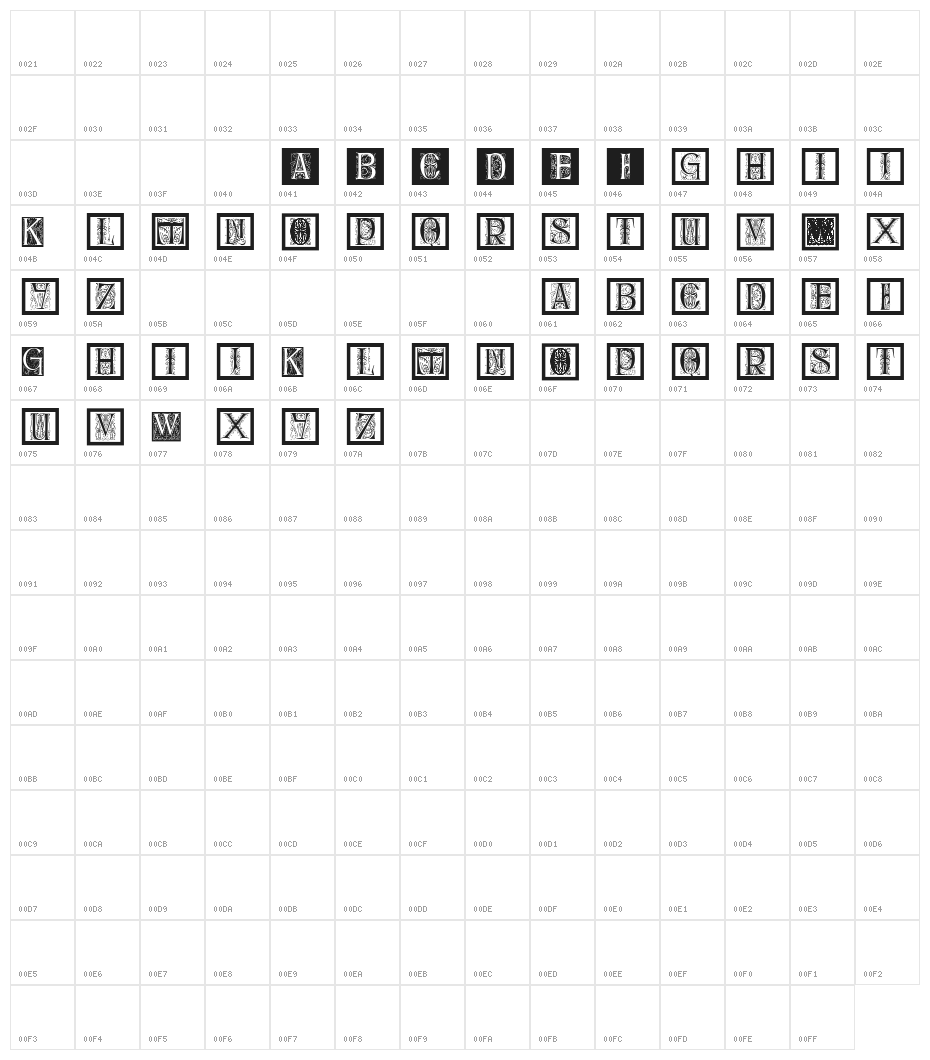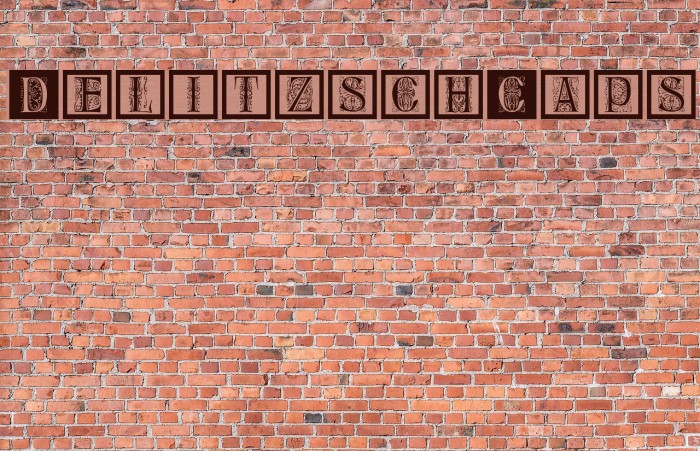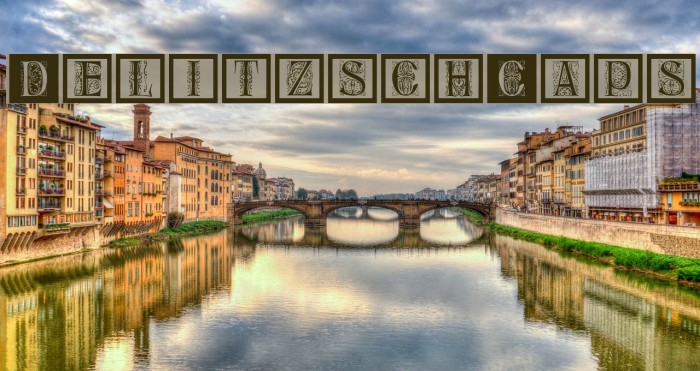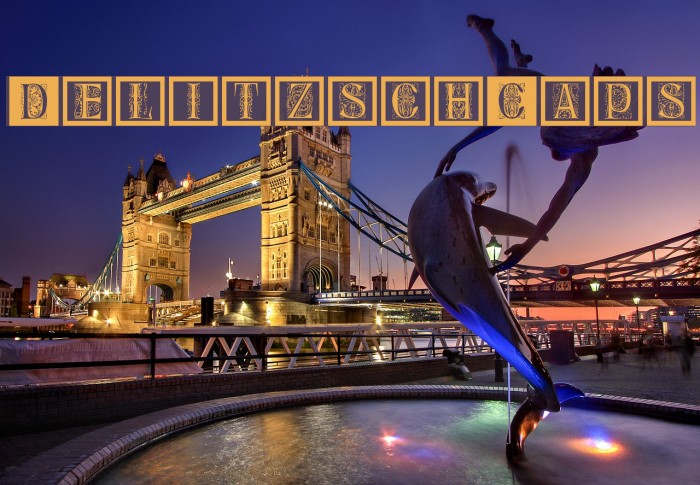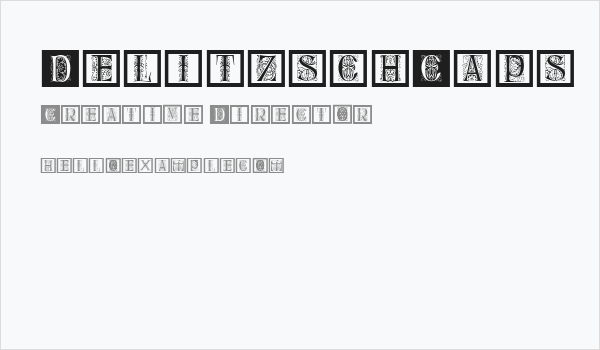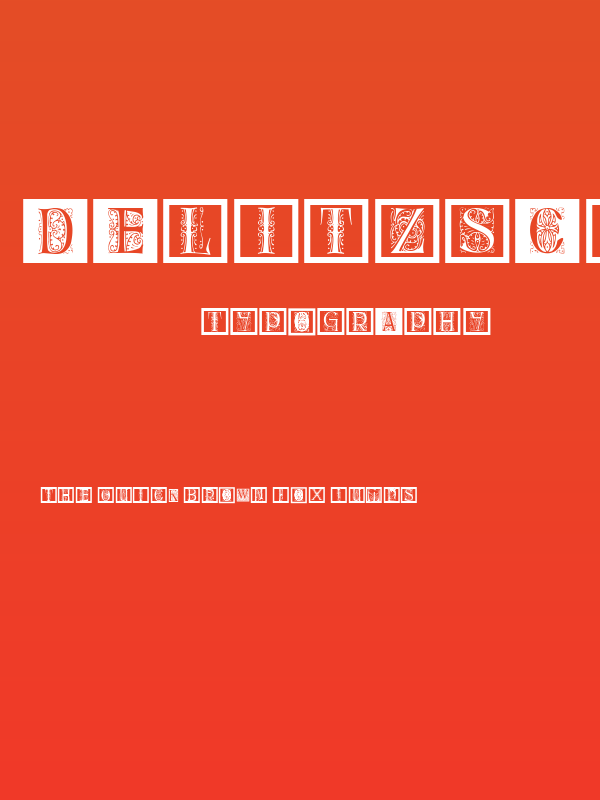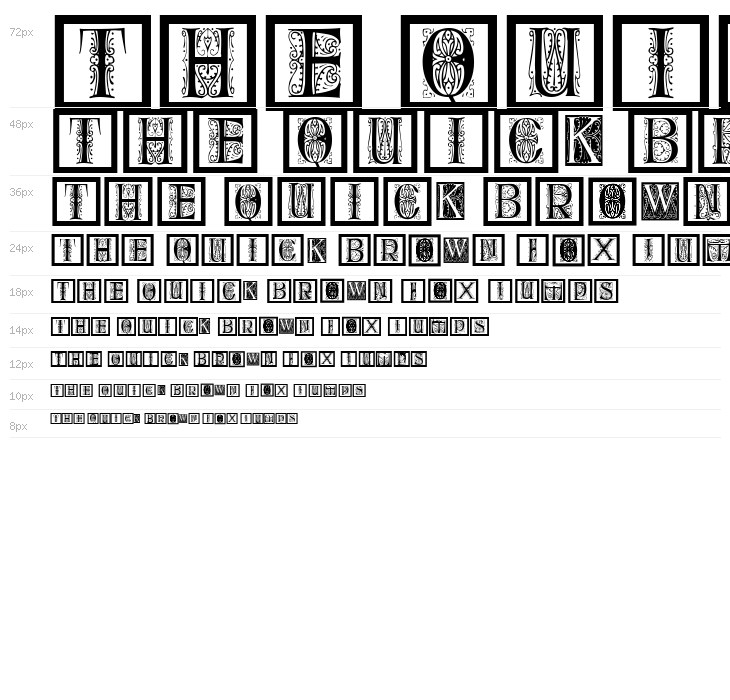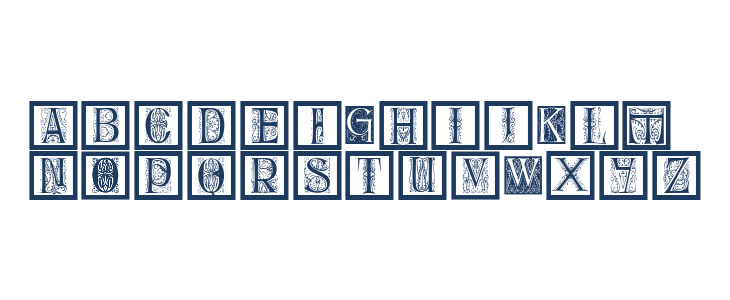
DelitzschCaps Font
DelitzschCaps Description
This font features an ornate and decorative style, with each letter encapsulated in a square frame. The characters are embellished with intricate floral and vine-like patterns, giving them a vintage and artistic appearance. The design is highly detailed, making it suitable for projects that require a touch of elegance and sophistication. The uppercase letters are uniform in size and shape, maintaining a consistent aesthetic throughout the set. The decorative elements within each letter add a unique flair, making this font ideal for creative and artistic applications.
Overall StyleVintage
Use CaseLogos, Headlines, Decorative text
Proposed ProjectsIdeal for wedding invitations, vintage-themed posters, artistic book covers, and decorative signage.